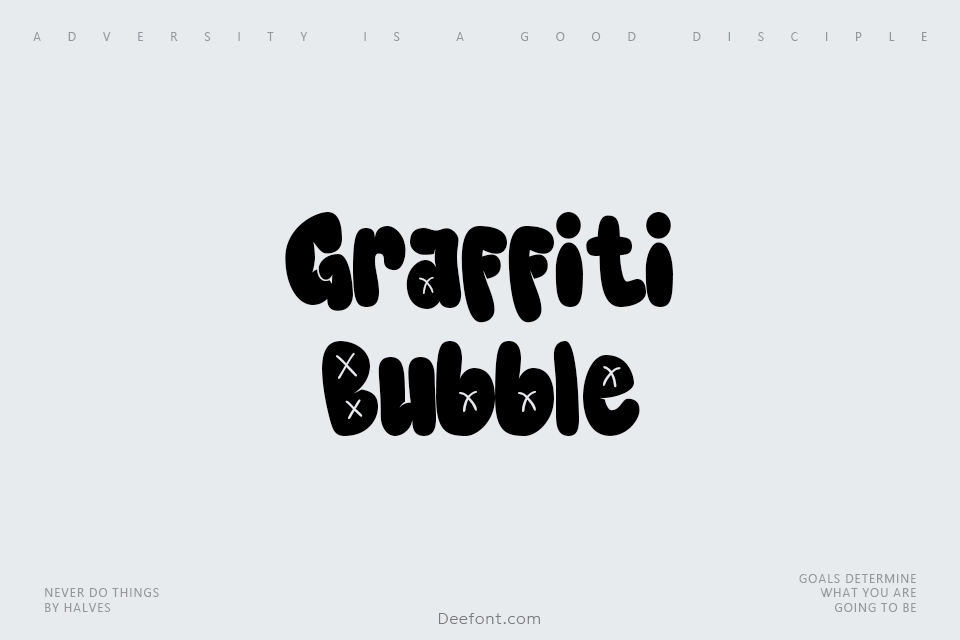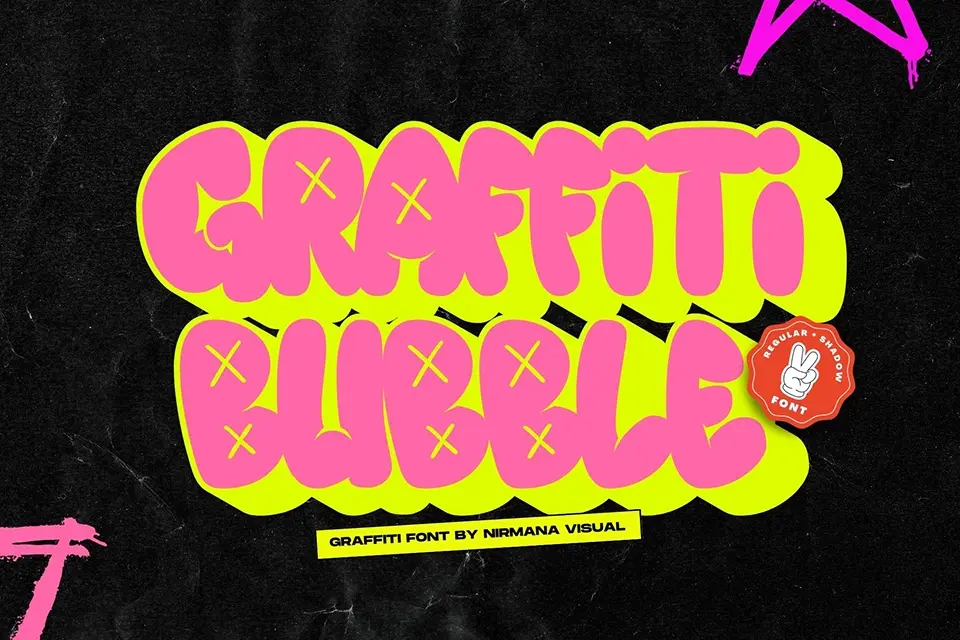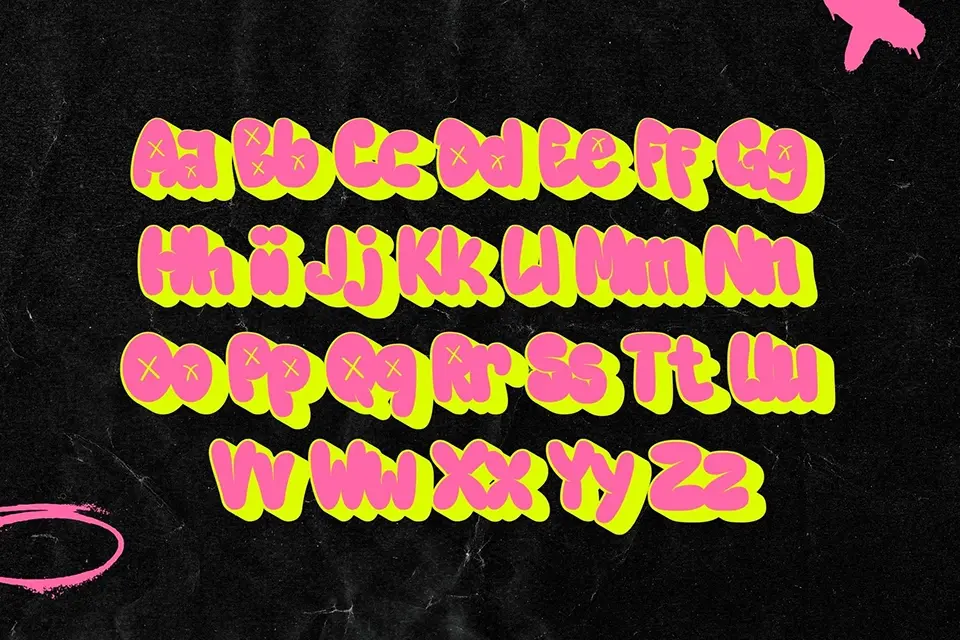
Graffiti Bubble Font
Graffiti Bubble is a bold and dynamic script font crafted by Nirmana Visual, featuring striking hand-painted aesthetic with organic strokes and playful bubble-like forms. This graffiti-inspired font evokes a rebellious, street-art vibe with irregular letterforms that create depth and texture. Perfect for bold branding, packaging design, attention-grabbing headlines, and impactful signage, Graffiti Bubble delivers robust legibility while conveying youthful vigor and urban edge.